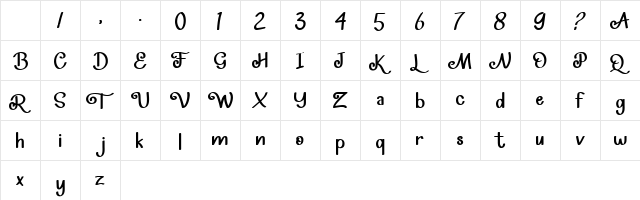
Complete Black Pepper Regular glyph index. Displaying only characters natively supported by Black Pepper Regular font.
Black Pepper is a composed and adaptable typeface that performs quietly and consistently across a wide range of design contexts.